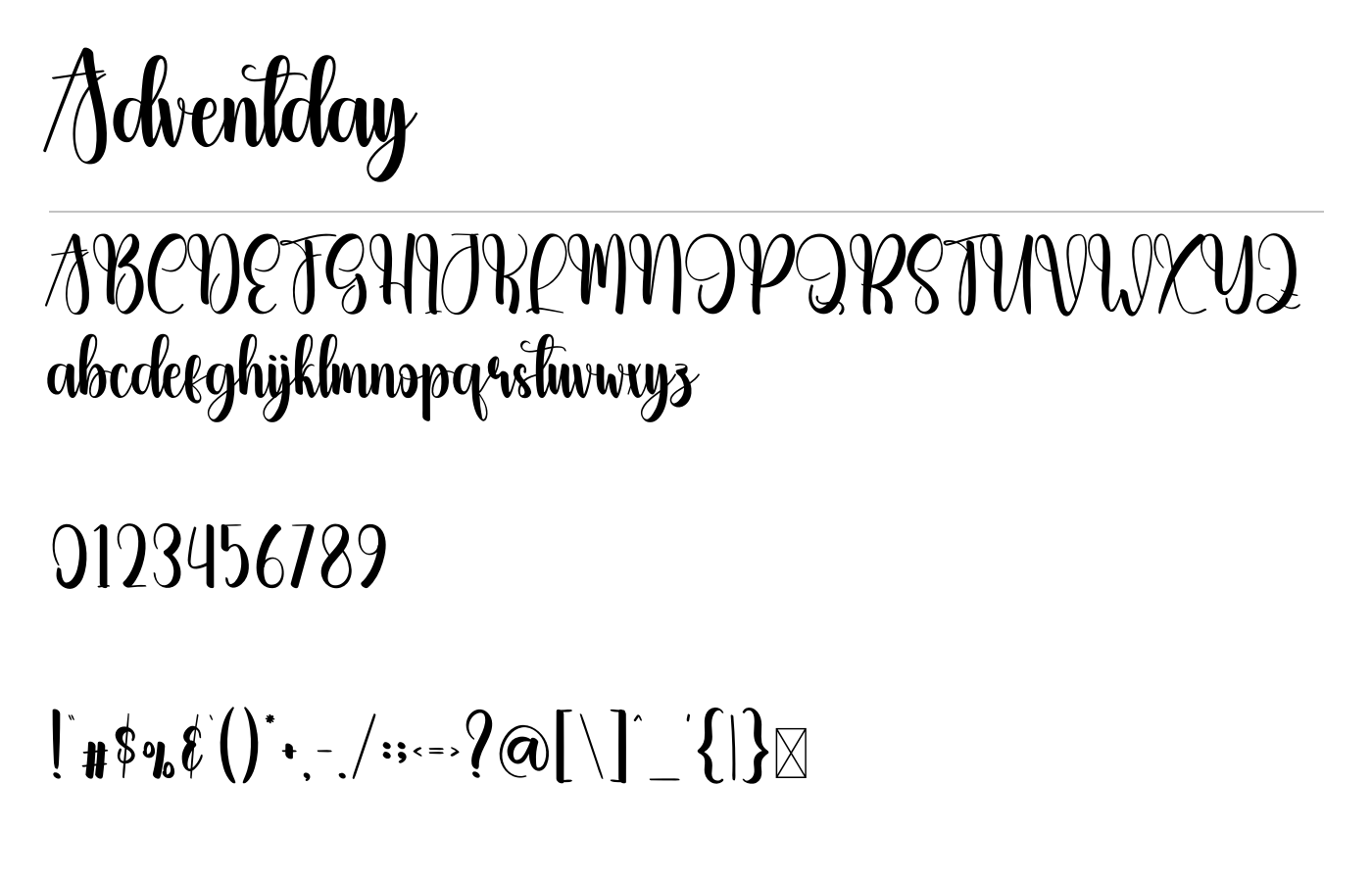
Adventday is a lively script font with elegant, flowing strokes and a playful yet refined character. Its tall, slender letterforms and decorative swashes make it perfect for adding a personal, artistic touch to invitations, branding, and headlines where a stylish, modern flair is desired. This font shines in projects needing a warm, creative, and approachable feel.
Adventday Font
About Adventday Font